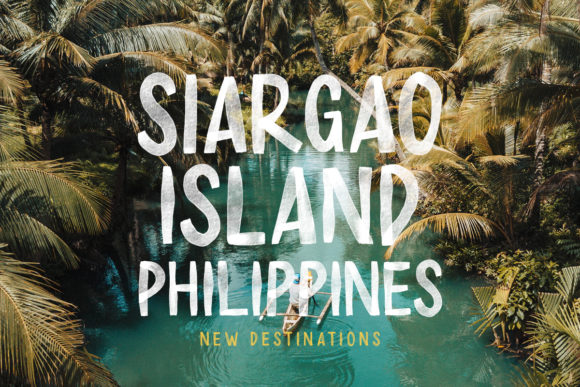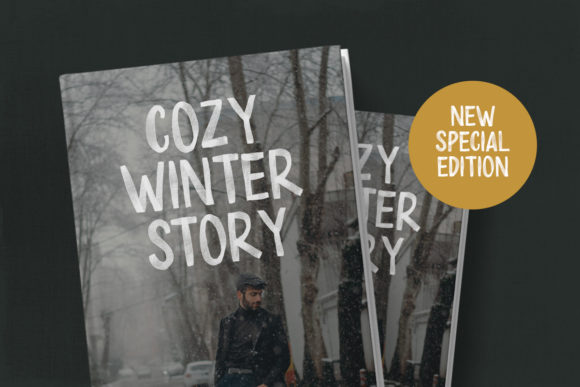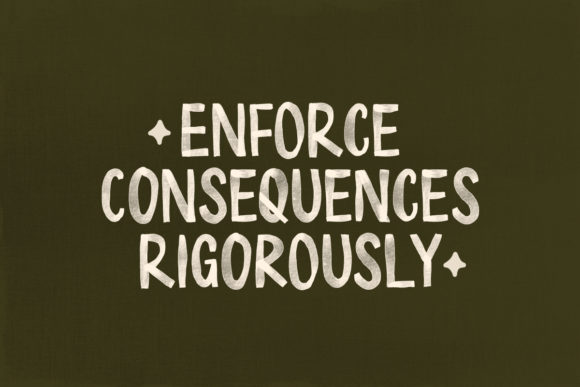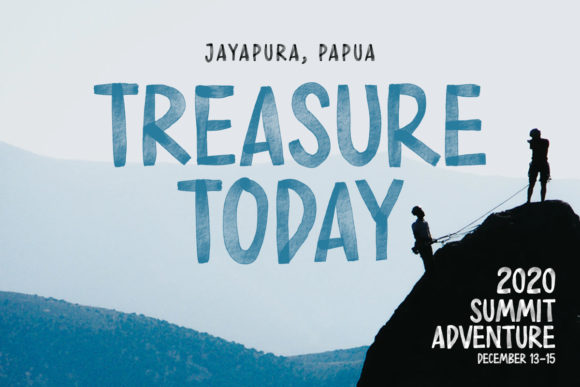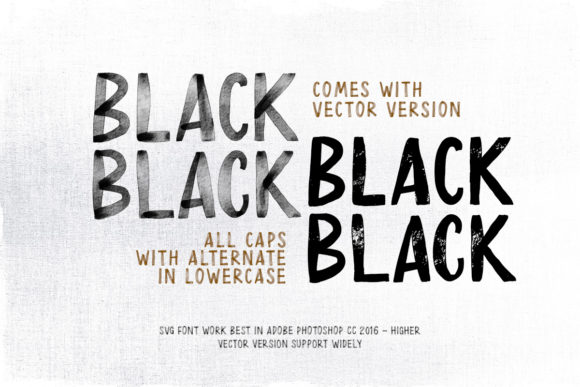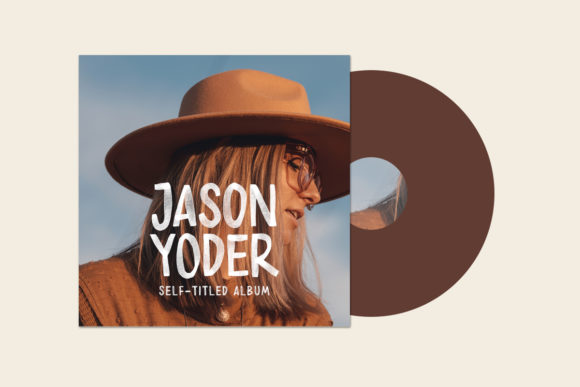
Introduction to Just Because Font
Just Because is a bold and simple lettered display font.
It has thick letters and a friendly style and is the ideal choice for a wide variety of informal designs .
Key Features of Just Because Font